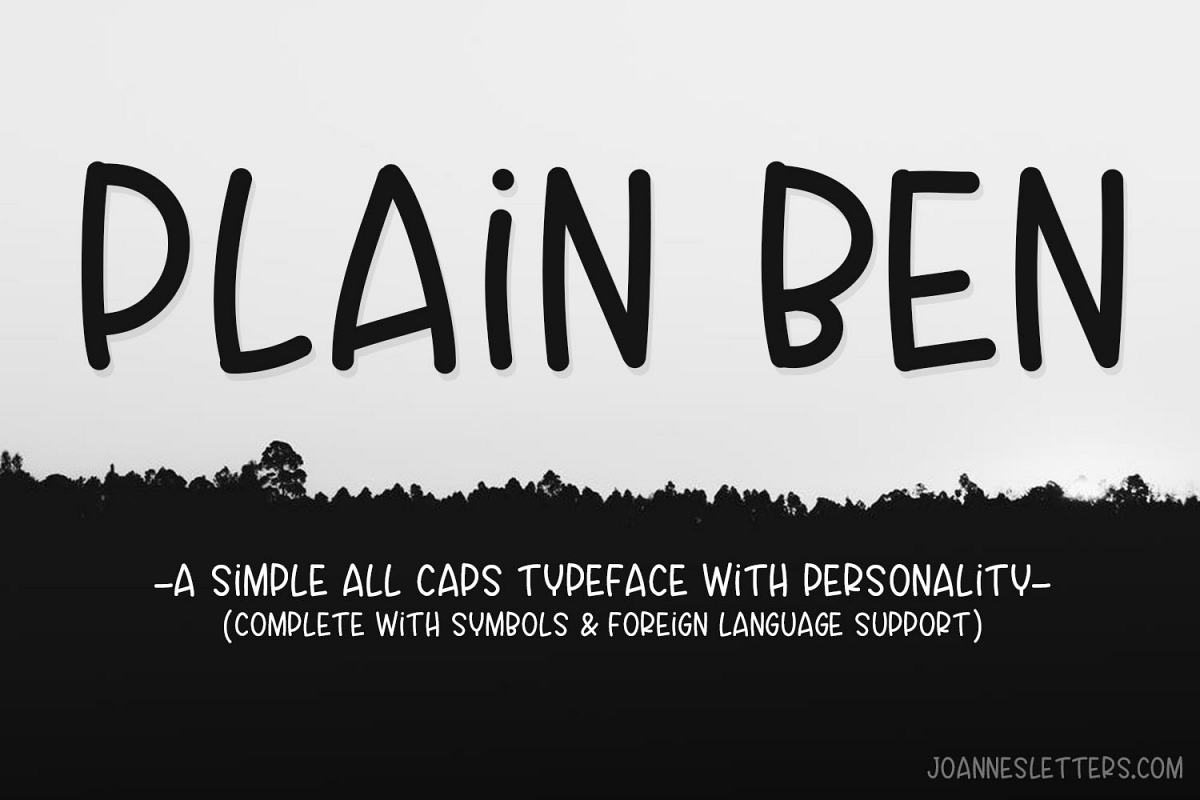
Plain Ben A Simple All Caps Typeface With Personality
INTRODUCING: Plain Ben​
Plain Ben is an all caps font, a simple one with personality of its own. It is perfect for chill projects that do not require a lot of formality. ​